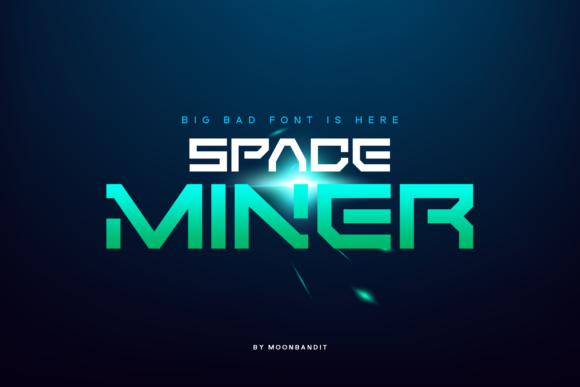
Journey into the cosmos with Space Miner Font, a celestial display font that captures the essence of the cosmos. Its unique design, reminiscent of a futuristic landscape, will transport your creations to new dimensions. Whether you're designing captivating logos, striking posters, or eye-catching social media graphics, Space Miner Font will elevate your work to astronomical heights.
Immerse yourself in the font's intricate details, where each character resembles an abstract sculpture, meticulously crafted to evoke a sense of mystery and wonder. The font's bold lines and sharp angles create a dynamic visual impact that demands attention, making your designs shine brighter than a supernova.
With Space Miner Font, you can craft designs that stand out from the mundane and embrace the extraordinary. Picture your designs adorned with this font, emanating an aura of cosmic elegance. Your words will dance across the screen like shimmering stars, captivating your audience and igniting their imaginations.
Let Space Miner Font be your creative compass, guiding you through uncharted design territories. Its versatility knows no bounds, making it the perfect font for a wide range of projects. Whether you're designing for print, web, or digital media, Space Miner Font will seamlessly adapt, ensuring your designs shine in any medium.
Don't let your creativity be confined to the ordinary. Embrace the boundless possibilities of Space Miner Font and watch as your designs take on a life of their own. Its innovative style will transform your projects into captivating masterpieces, leaving your audience in awe and eager for more.